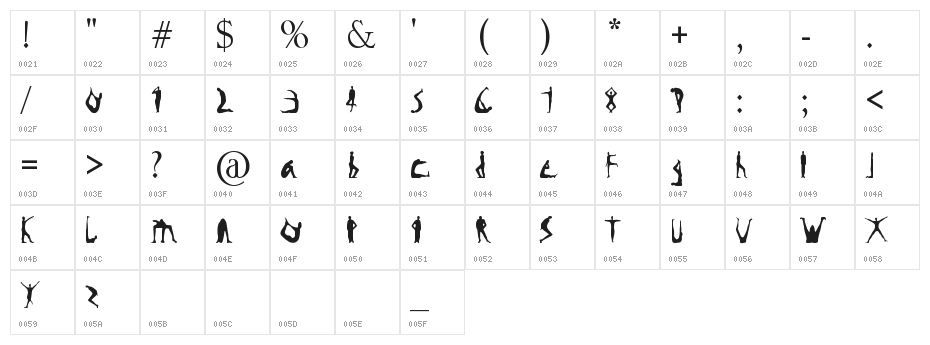
hufo Font
| Progetti proposti | Ideal for creative projects such as posters, album covers, or event invitations where a unique and artistic touch is desired. |